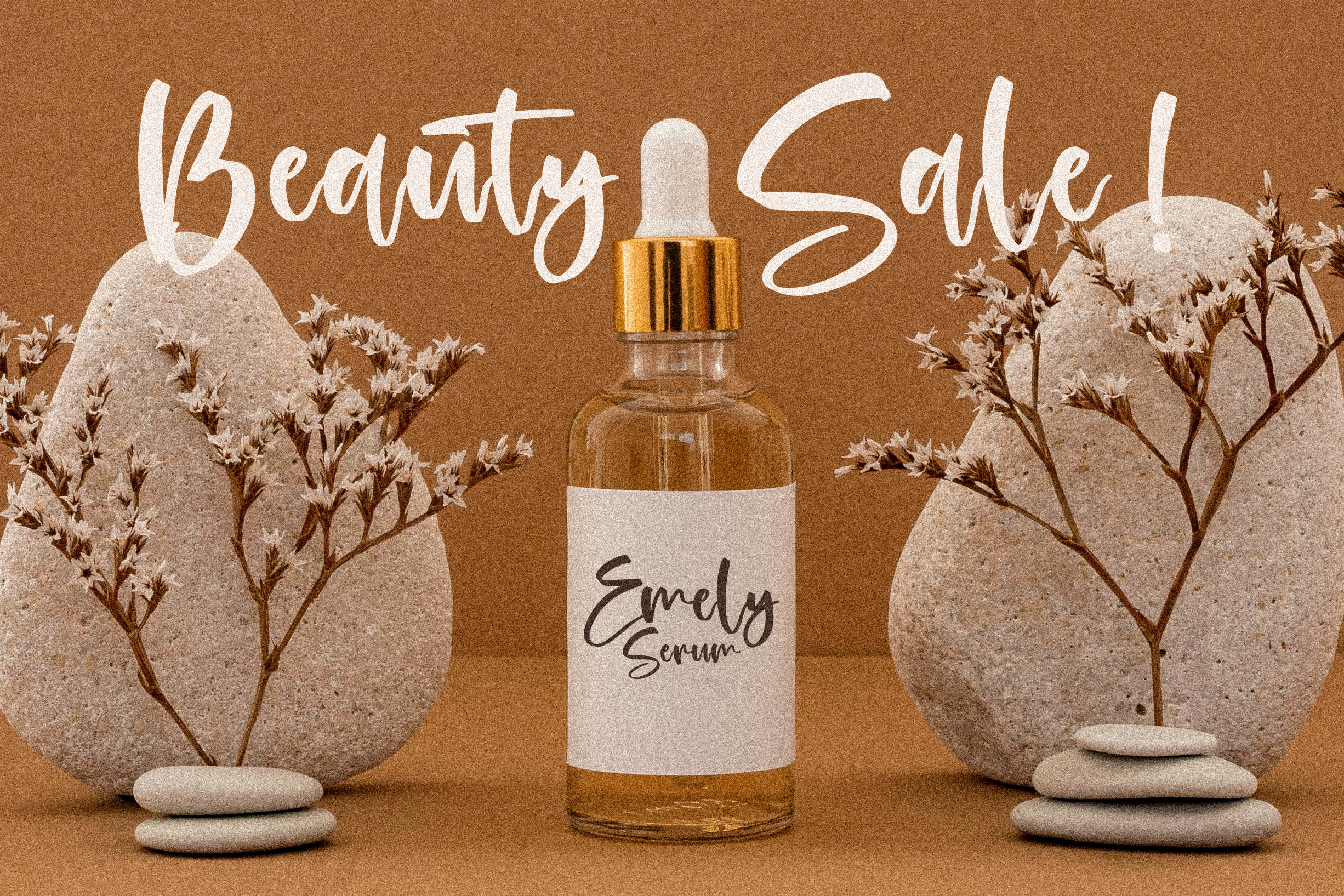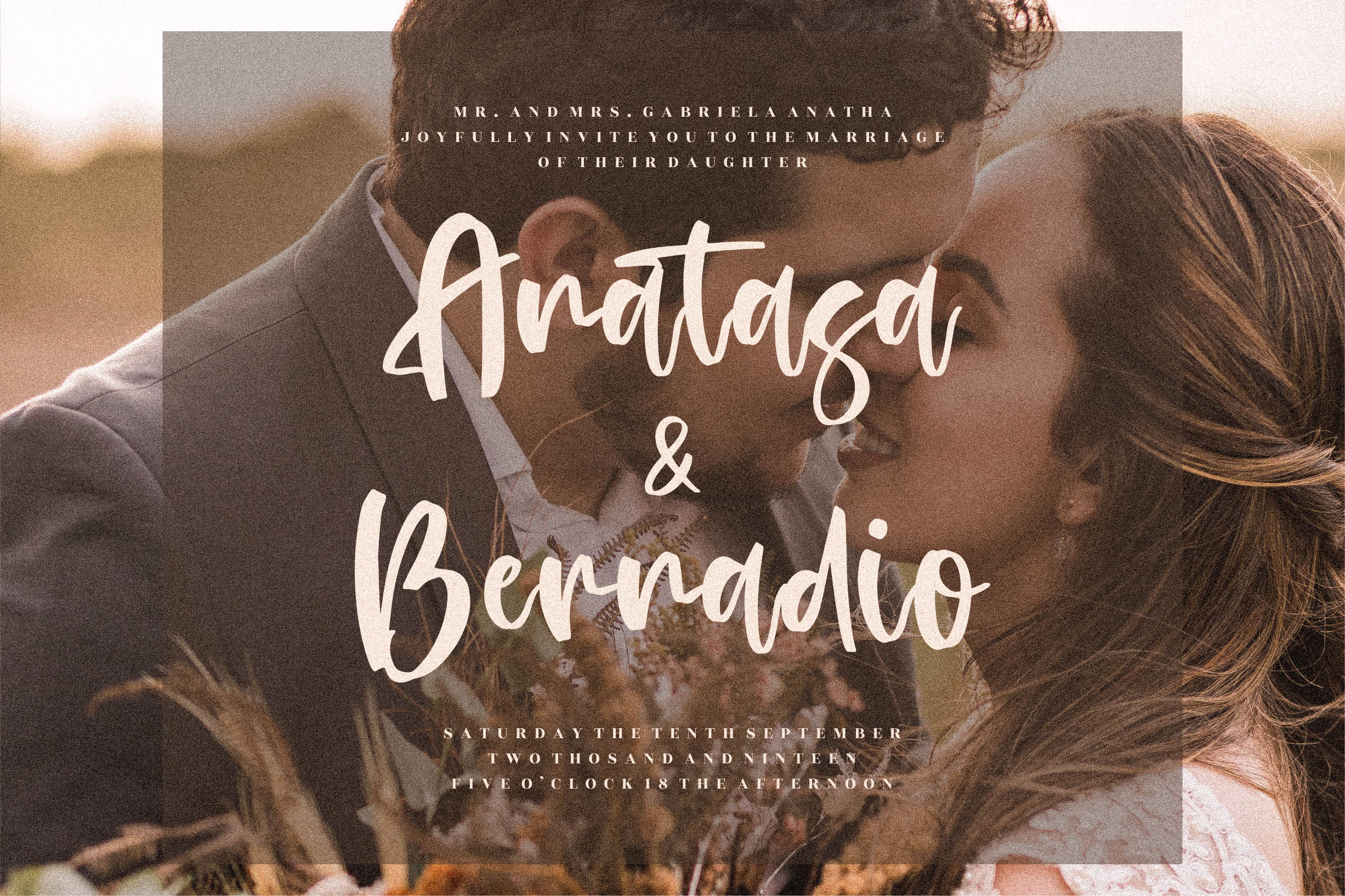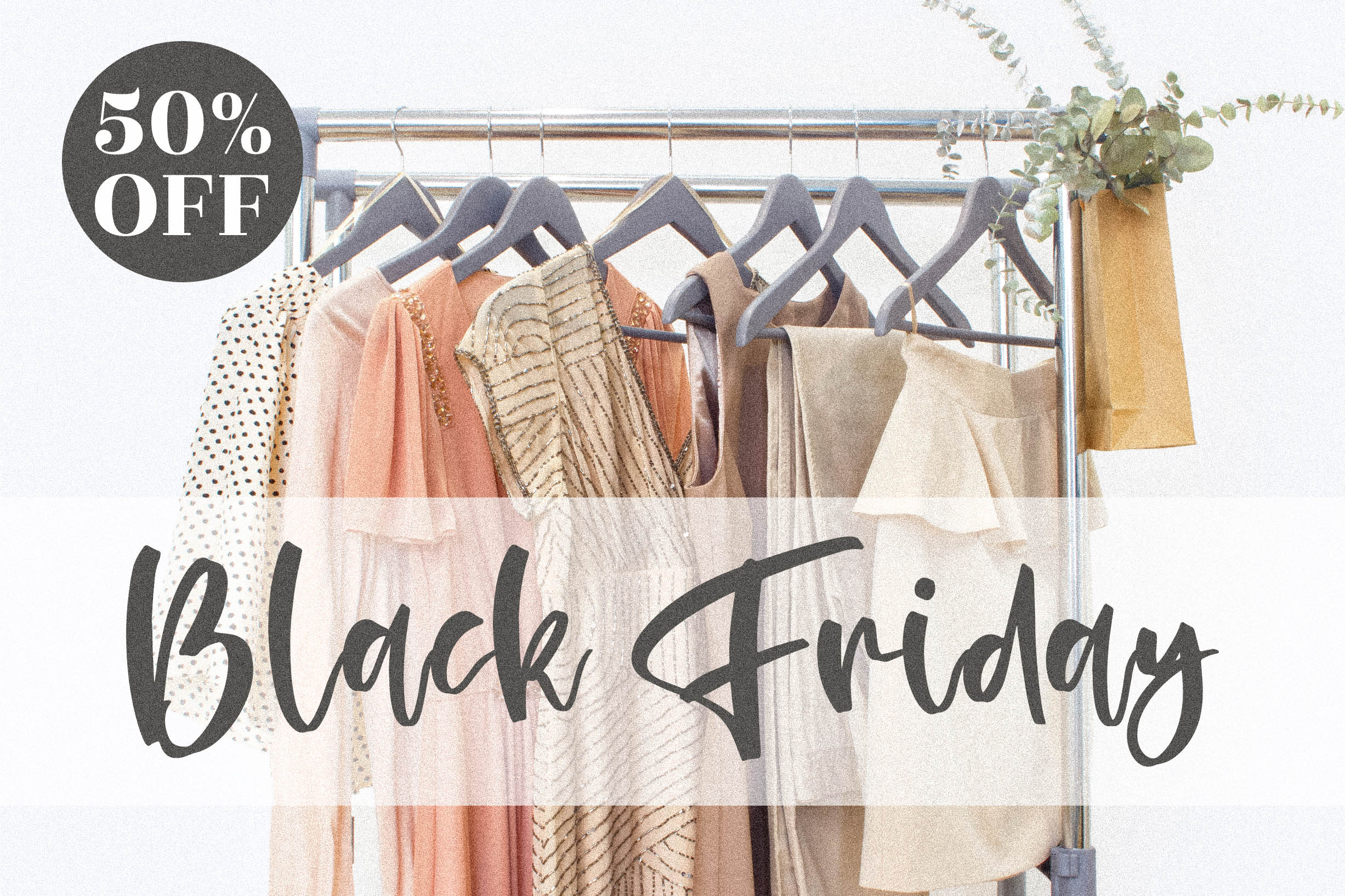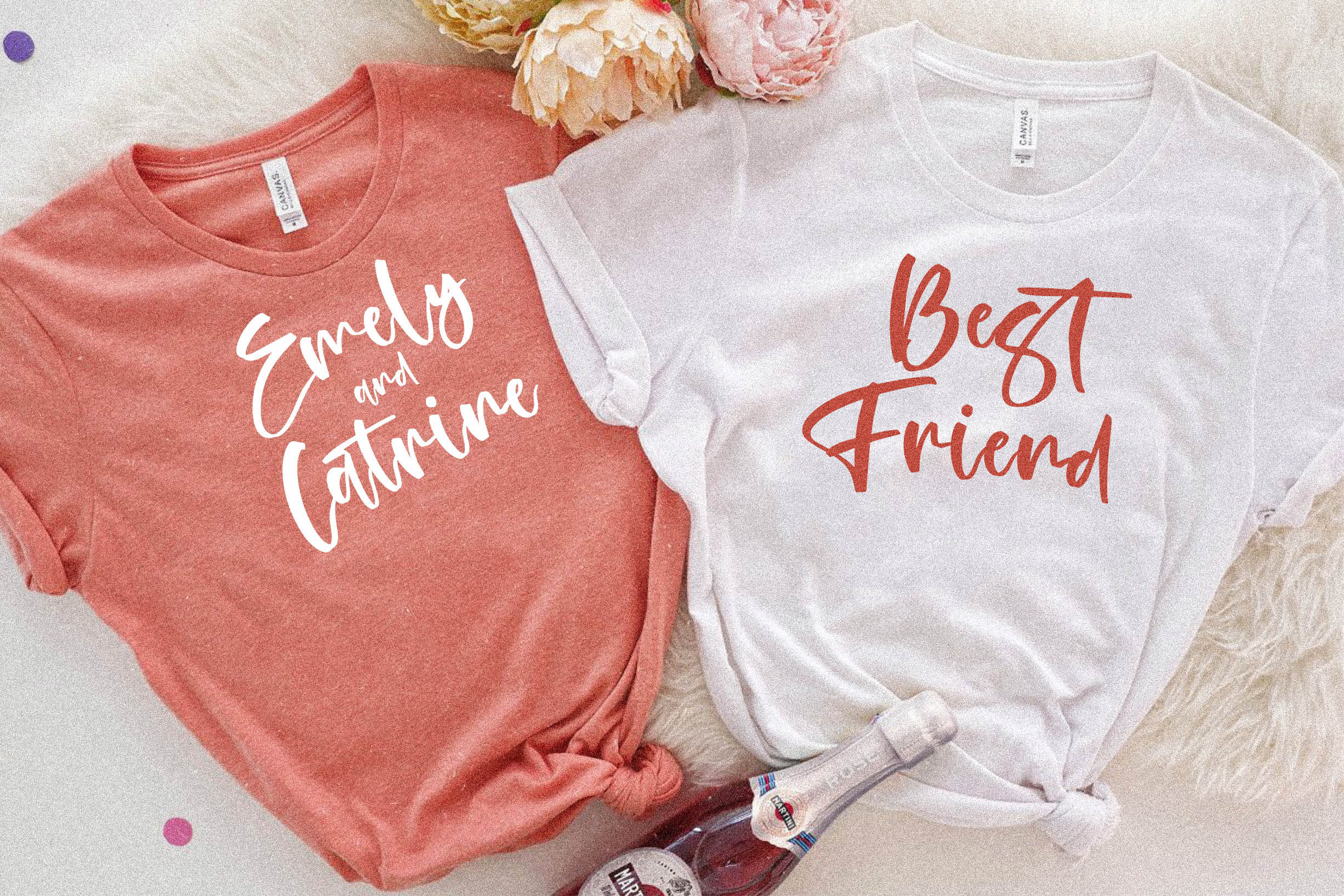
Falinlove Font
Falinlove Script Font
This is a handwritten font, suitable for any projects such as: logos, branding projects, homeware designs, product packaging, mugs, quotes, posters, shopping bags, t-shirts, book covers, name card, invitation cards, greeting cards, label, photography, watermark, special events, and all your other luxury projects that need a handwritten taste.